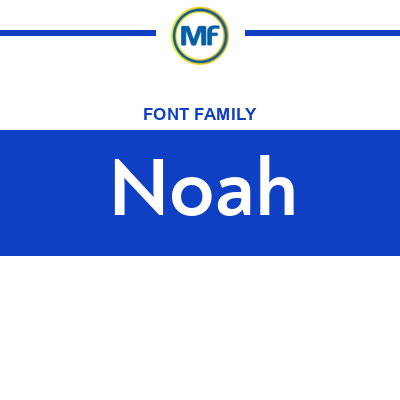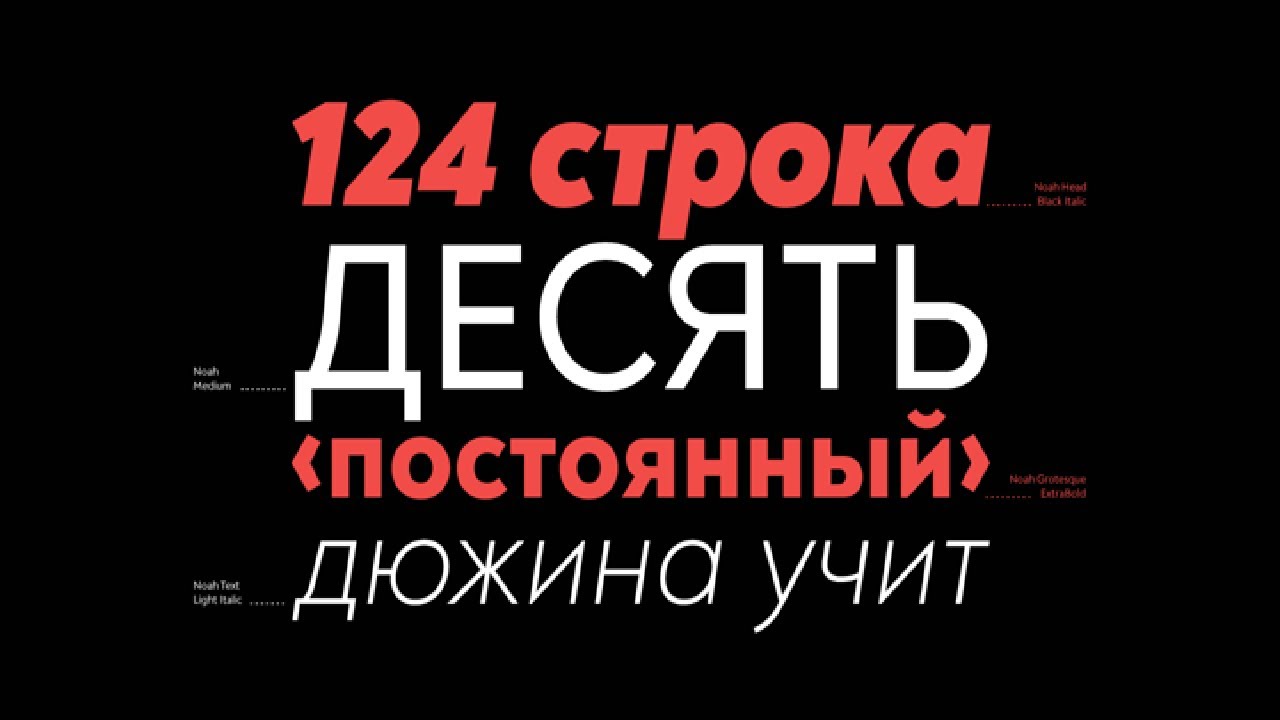
Noah Font Free By Fontfabric Font Squirrel Download and install free noah font family. this font is from sans serif category and exclusively available at dafont free. Noah font family is a versatile geometric sans serif typeface. it extends the limits of x height, offering exceptional flexibility across various typographic applications.
Download Noah Font Family Free Free Serif Fonts This type family encompasses 72 fonts grouped into four subfamilies with different x heights — starting from the lowest one noah grotesque through noah and noah text to the highest one noah head — all they including styles from thin to black with matching true italics. Experience noah’s beautiful typography with our noah font generator. this tool allows you to check how your text would display in the font and download the ones you prefer. Noah is more than just another geometric sans. with sharp details and a distinctive arrangement, it further extends the limits of the x height, providing unparalleled flexibility. Download free noah font, view its character map and generate text based images or logos with noah font online.
Noah Font By Dreams Soul G Creative Fabrica Noah is more than just another geometric sans. with sharp details and a distinctive arrangement, it further extends the limits of the x height, providing unparalleled flexibility. Download free noah font, view its character map and generate text based images or logos with noah font online. Archive of freely downloadable fonts. browse by alphabetical listing, by style, by author or by popularity. The noah font family is a meticulously crafted geometric sans serif typeface that goes beyond convention. designed by fontfabric, noah features sharp details and a distinctive arrangement that significantly extends the limits of its x height, offering unparalleled flexibility. Get the noah font free! a sleek, italic font perfect for logos, headlines, and modern branding. download now and unleash your creative potential!. Download font noah by fontfabric. font is compatible with figma, windows, mac and more.
Noah Text Font Dafontstyle Archive of freely downloadable fonts. browse by alphabetical listing, by style, by author or by popularity. The noah font family is a meticulously crafted geometric sans serif typeface that goes beyond convention. designed by fontfabric, noah features sharp details and a distinctive arrangement that significantly extends the limits of its x height, offering unparalleled flexibility. Get the noah font free! a sleek, italic font perfect for logos, headlines, and modern branding. download now and unleash your creative potential!. Download font noah by fontfabric. font is compatible with figma, windows, mac and more.